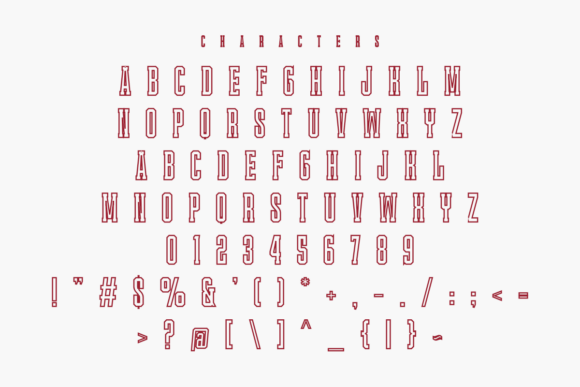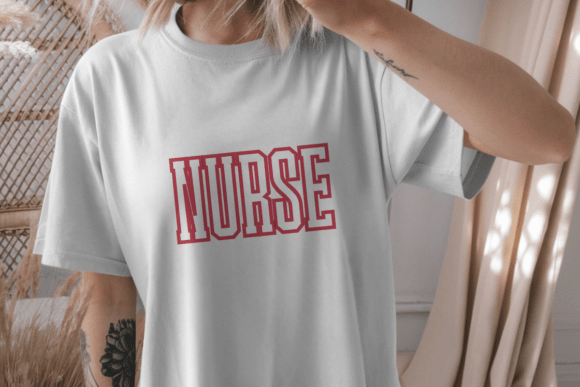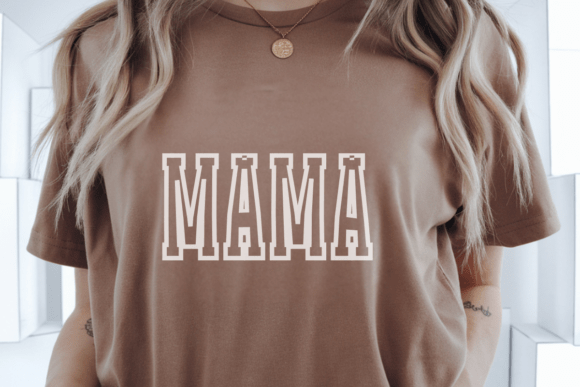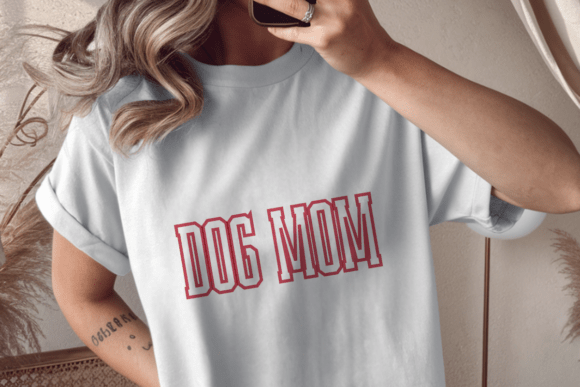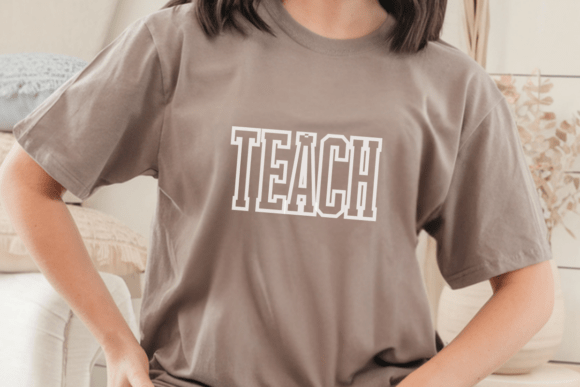
Introduction to Mascot College Outline Font
Mascot College is a bold and authoritative modern college display font designed to bring a classic varsity spirit to your creative projects.
This typeface features a strong, blocky anatomy with timeless athletic slab-serif details, making it an essential tool for graphic designers, professional crafters, and Print on Demand (POD) entrepreneurs It is perfectly engineered for high-impact t-shirt designs, university-style team logos, sports jerseys, and high-energy fan merchandise.
Key Features of Mascot College Outline Font
Why Choose Mascot College Outline Font?